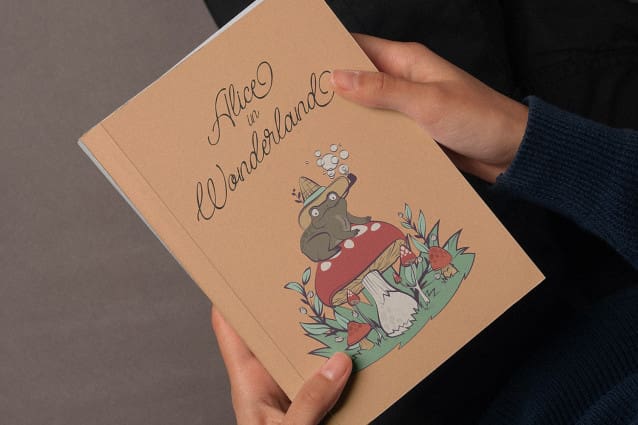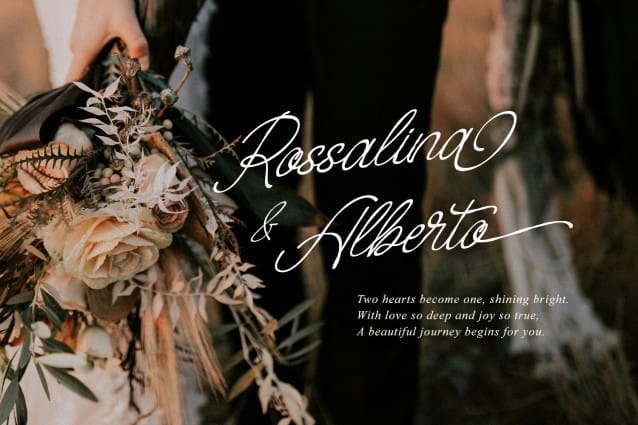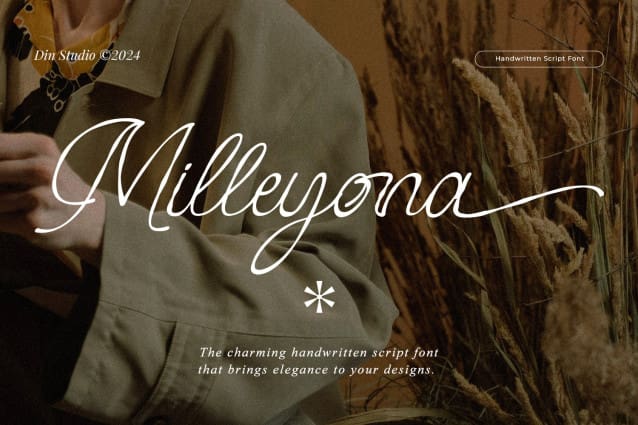
Milleyona Font
Milleyona Font is a delicate and elegant handwritten font that exudes sophistication with its thin weight. The connected letters flow seamlessly, creating a smooth and continuous script. With fairly consistent letter proportions, Milleyona offers a harmonious and balanced appearance. In addition, enjoy the features here.